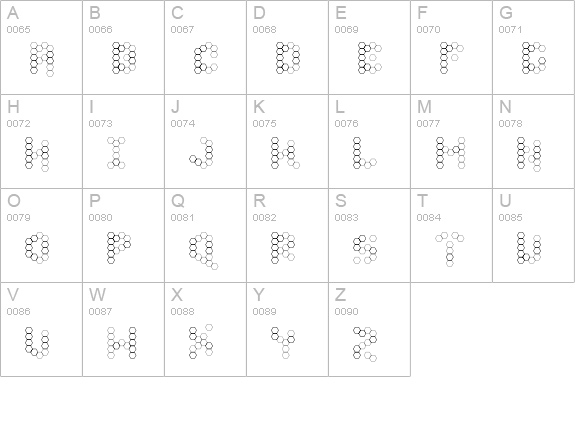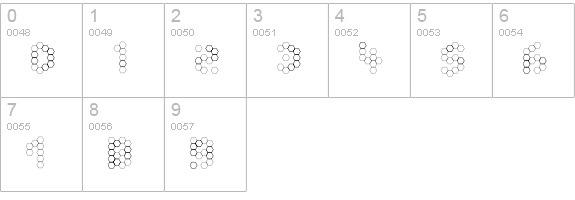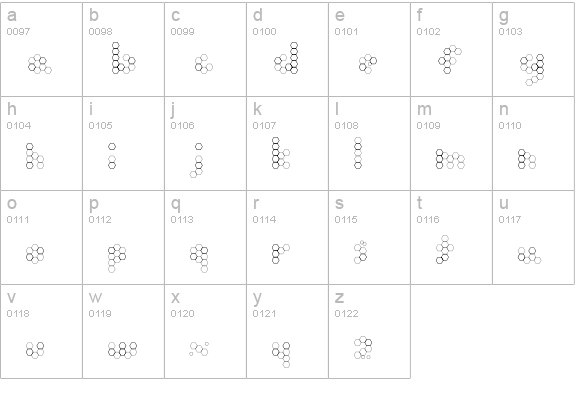
U Honeycombed Font Details
Introducing U Honeycombed, a delightful and unique font that will add a touch of playfulness to your designs. This whimsical font captures the essence of honeycombs with its intricate and beautifully crafted letterforms. Each character is expertly designed to resemble the intricate patterns found in beehives, giving your text a distinctive and captivating appearance. U Honeycombed is perfect for a wide range of projects, including logos, branding, packaging, posters, and more. Its charming and playful nature makes it especially suitable for children's books, crafts, and products. Whether you're looking to create a buzz with a fun and vibrant design or add a touch of sweetness to your brand, U Honeycombed is the perfect choice. And the best part? U Honeycombed is available for free download at FontsMarket.com. Yes, you read that right - this incredible font can be yours without spending a dime. FontsMarket.com offers a vast collection of high-quality fonts, and U Honeycombed is just one of the many gems you can find on their website. So, why wait? Download U Honeycombed today and bring a touch of whimsy and charm to your next design project. With its intricate honeycomb-inspired letterforms and its availability for free, U Honeycombed is the perfect addition to any designer's toolkit.